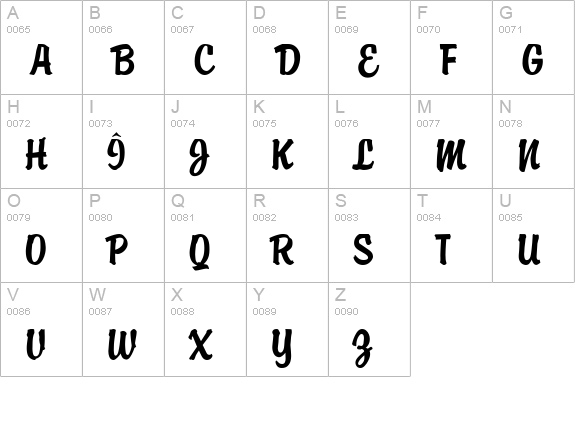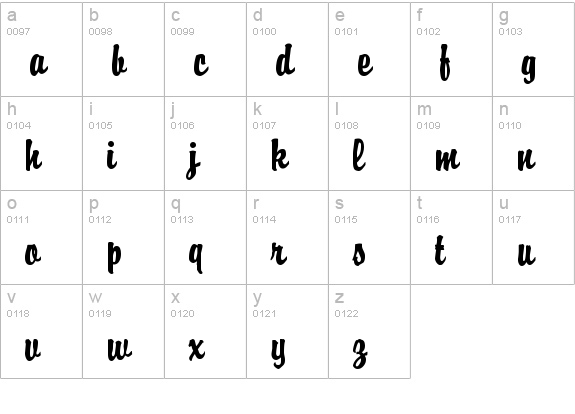
Briquet Font Details
Briquet font is a modern and elegant typeface that exudes sophistication and versatility. With its clean lines and stylish curves, Briquet is perfect for a wide range of design projects, from branding to editorial design. This versatile font is sure to make your text pop and stand out. Best of all, Briquet font is available for free download at FontsMarket.com. This means you can easily access this high-quality typeface without breaking the bank. So why wait? Download Briquet font today and elevate your designs to the next level!